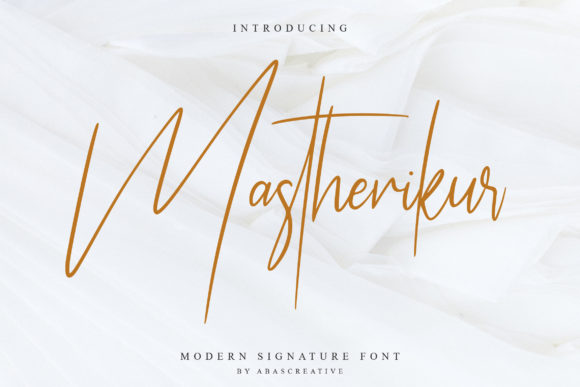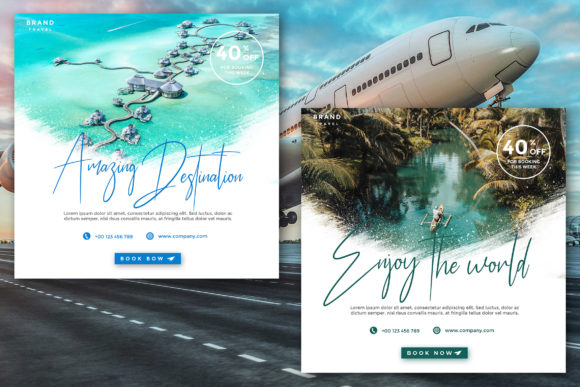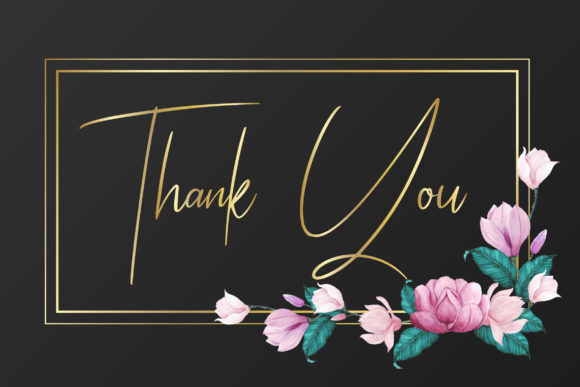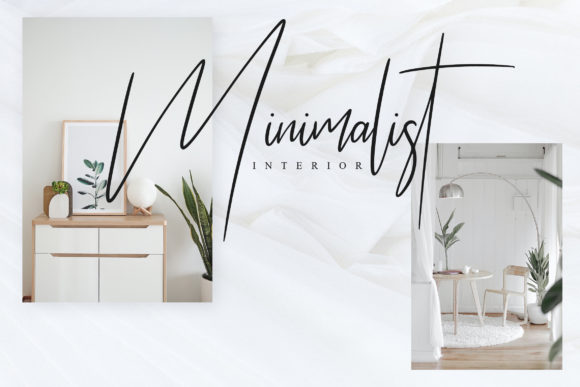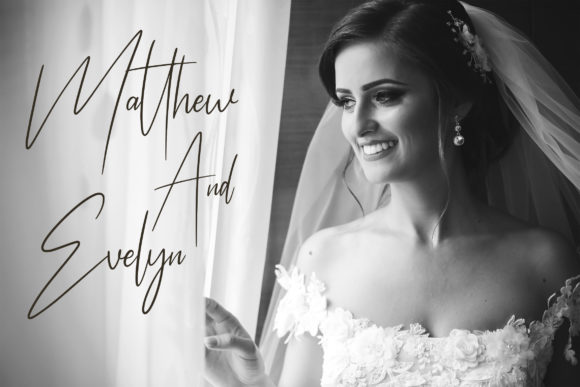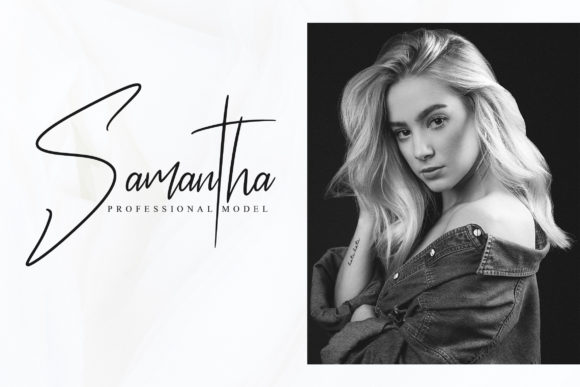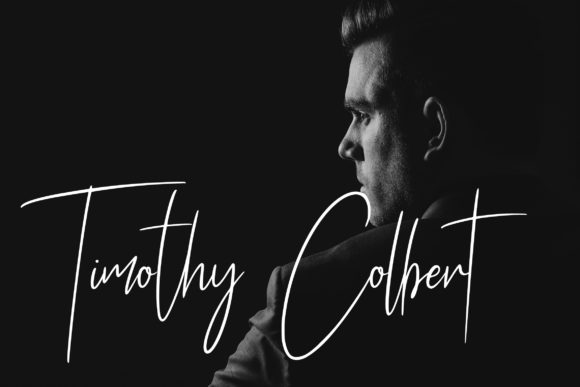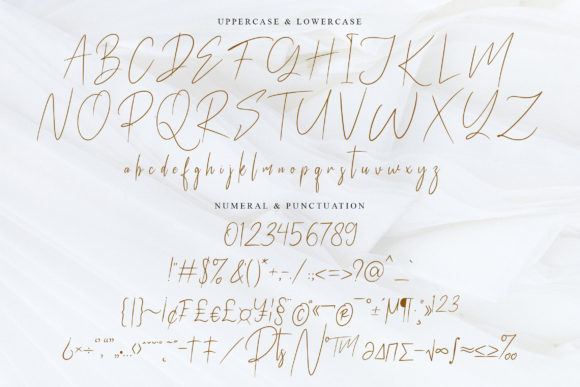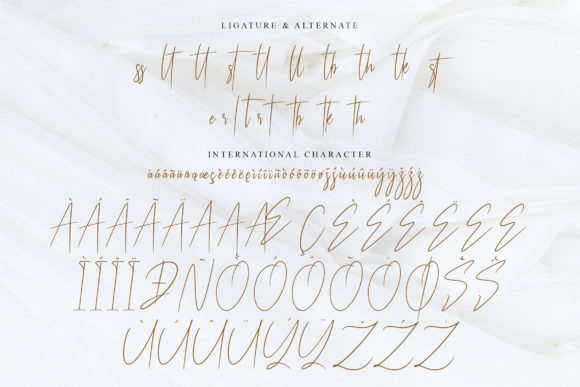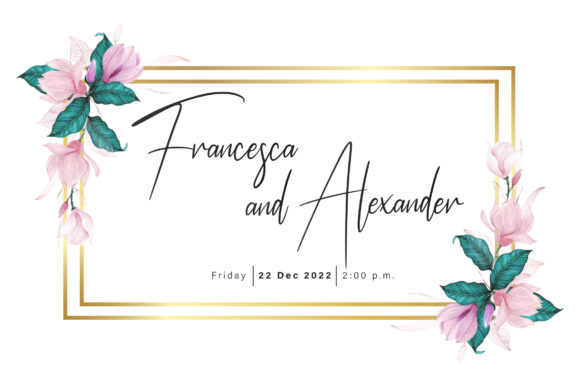
Mastherikur Font
About Mastherikur Font
Mastherikur is a modern and timeless handwritten font. This stunning typeface is a stylish homage to classic calligraphy. It features a varying baseline, smooth lines, gorgeous glyphs and stunning alternates.